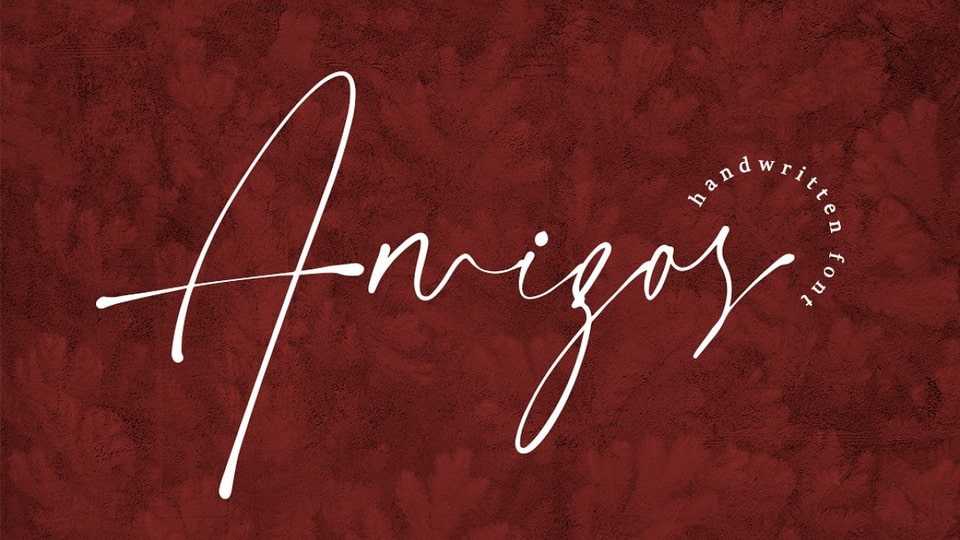
Download Amigos font, an elegant and classy handwritten typeface. Amigos will complement your design projects such as business cards, invitations, titles, mockups, etc.
Designer: Moove Studio